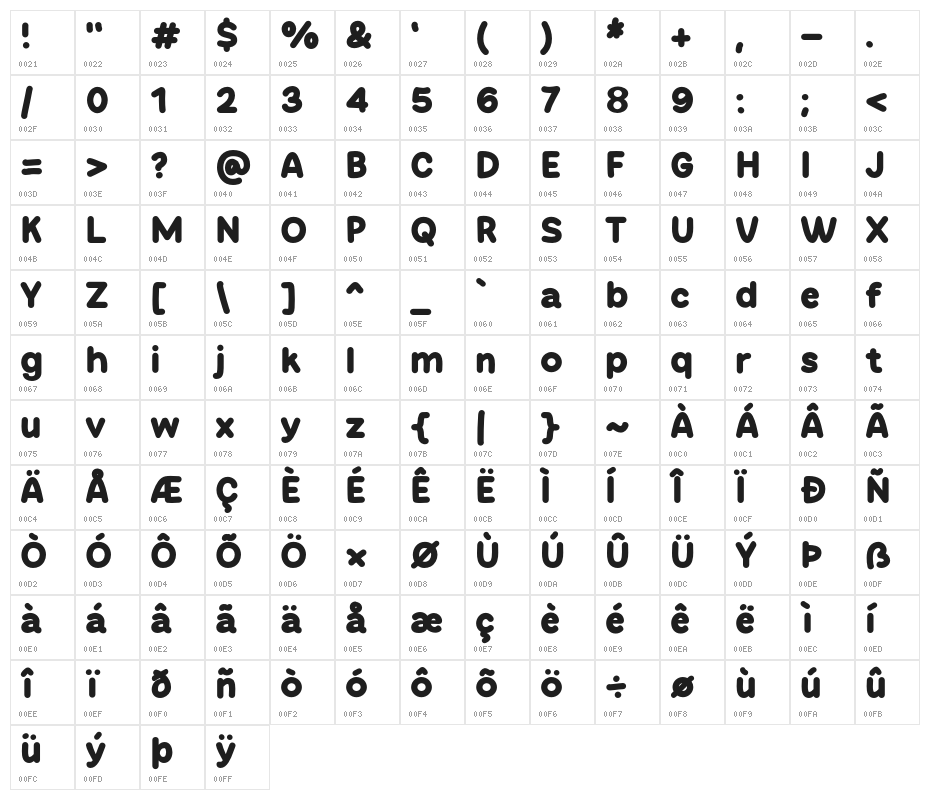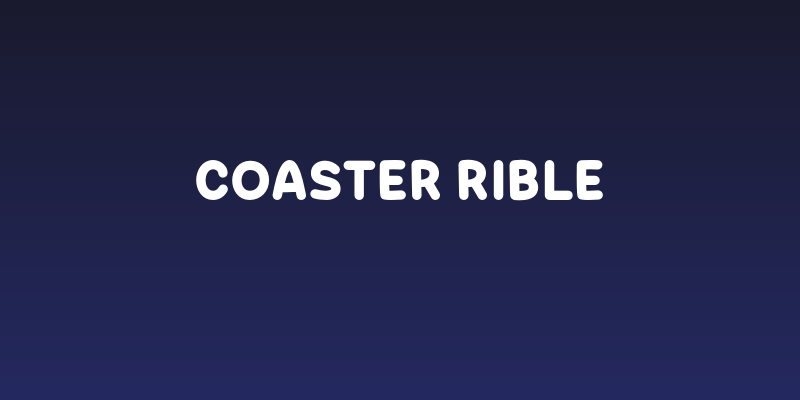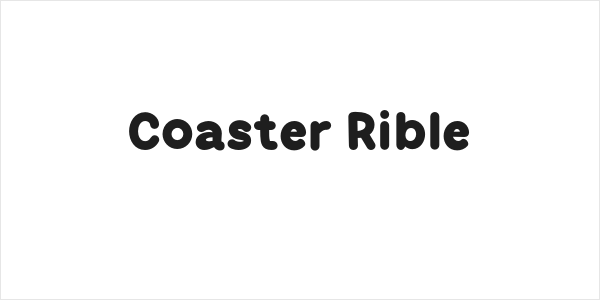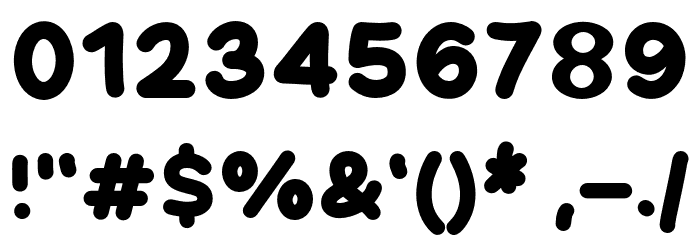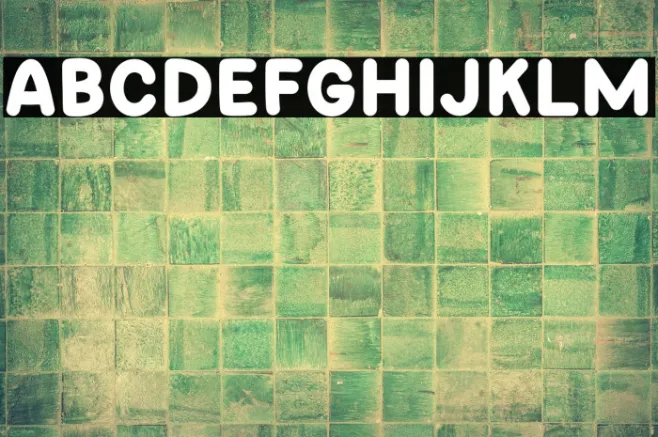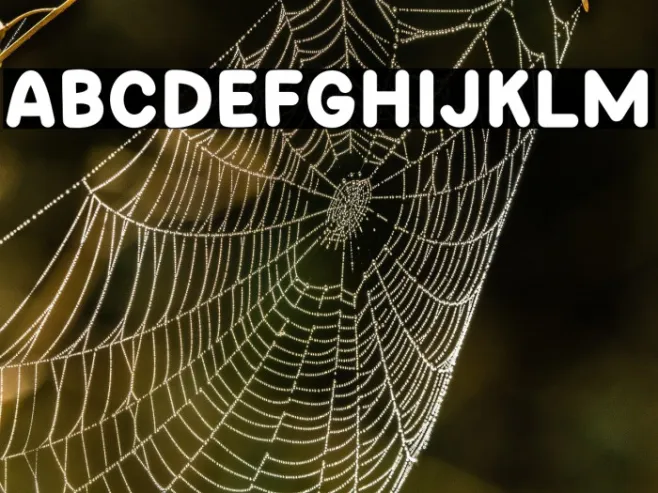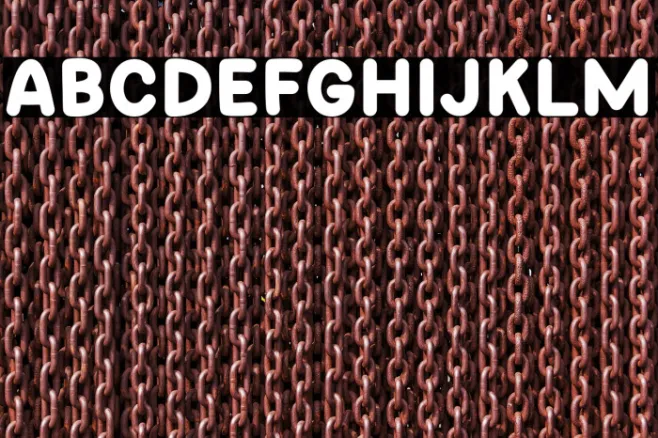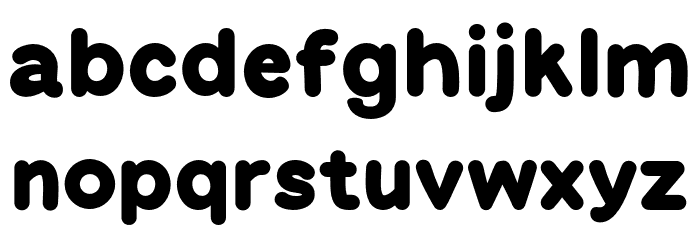
Coaster Rible Font
Coaster Rible Description
This font features a playful and rounded style, characterized by its bold and bubbly appearance. The letters are uniformly thick, giving it a friendly and approachable look. The rounded edges and consistent stroke width contribute to its casual and informal aesthetic, making it ideal for projects that require a fun and lively touch. The numerals and special characters maintain the same playful design, ensuring a cohesive look across all text elements.
| Overall Style | Playful |
| Proposed Projects | Ideal for children's books, playful branding, posters, and casual invitations. |